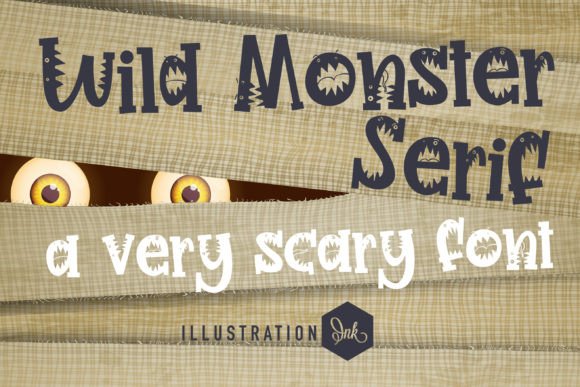
Journey into the realm of the unknown, where darkness unfurls its secrets and eerie tales haunt the imagination. Wild Monster Serif, a chilling serif font, beckons you to embrace the macabre and craft stories that send shivers down the spine. This handcrafted masterpiece, conjured by the artisans of Illustration Ink, is not merely a font; it's a portal to the supernatural, a conduit to unleash the hidden fears lurking within the depths of your creativity.
Crafted with meticulous precision, Wild Monster Serif captures the essence of horror, whispering tales of ghostly encounters, haunted mansions, and creatures of the night. Each letterform, imbued with a sinister charm, dances upon the page, creating an aura of mystery and intrigue. The bold strokes, reminiscent of gnarled branches reaching out from the shadows, add depth and texture to your digital designs, leaving an unforgettable impression.
Unleash your inner storyteller and let the characters leap off the page, their voices echoing through the minds of your readers. Wild Monster Serif's haunted elegance is the perfect choice for conjuring terrifying tales, chilling poems, and spine-tingling scripts. Whether you're a seasoned horror aficionado or a writer seeking a font that breathes life into your dark imaginings, this font is your muse, your faithful companion in the realm of the macabre.
Beyond its literary prowess, Wild Monster Serif possesses an uncanny versatility, a chameleon-like ability to adapt to diverse design landscapes. Weave it into logos that evoke a sense of mystery, let it dance upon posters advertising haunted attractions, or summon eerie ambiance to flyers and invitations for Halloween gatherings. This font is a shapeshifter, effortlessly transforming itself to match your creative vision.
Embrace the darkness, dear wanderer of words, and let Wild Monster Serif be your guide. Dare to explore the depths of your imagination, to paint vivid pictures of horror and suspense. This font is the key that unlocks the door to a world of shadows and whispers, where nightmares and dreams collide. Seize this opportunity to elevate your creations, to leave an indelible mark on the minds of your audience.